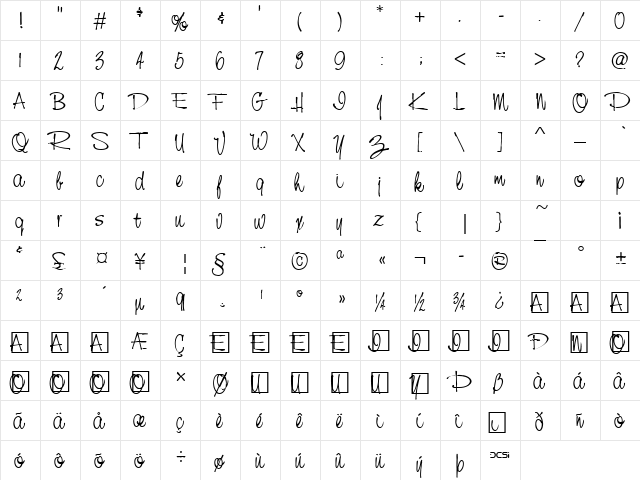
FFX Caricature Regular Font Preview
FFX Caricature Regular
Design Context for FFX Caricature Typeface
FFX Caricature is a composed and adaptable typeface that performs quietly and consistently across a wide range of design contexts.